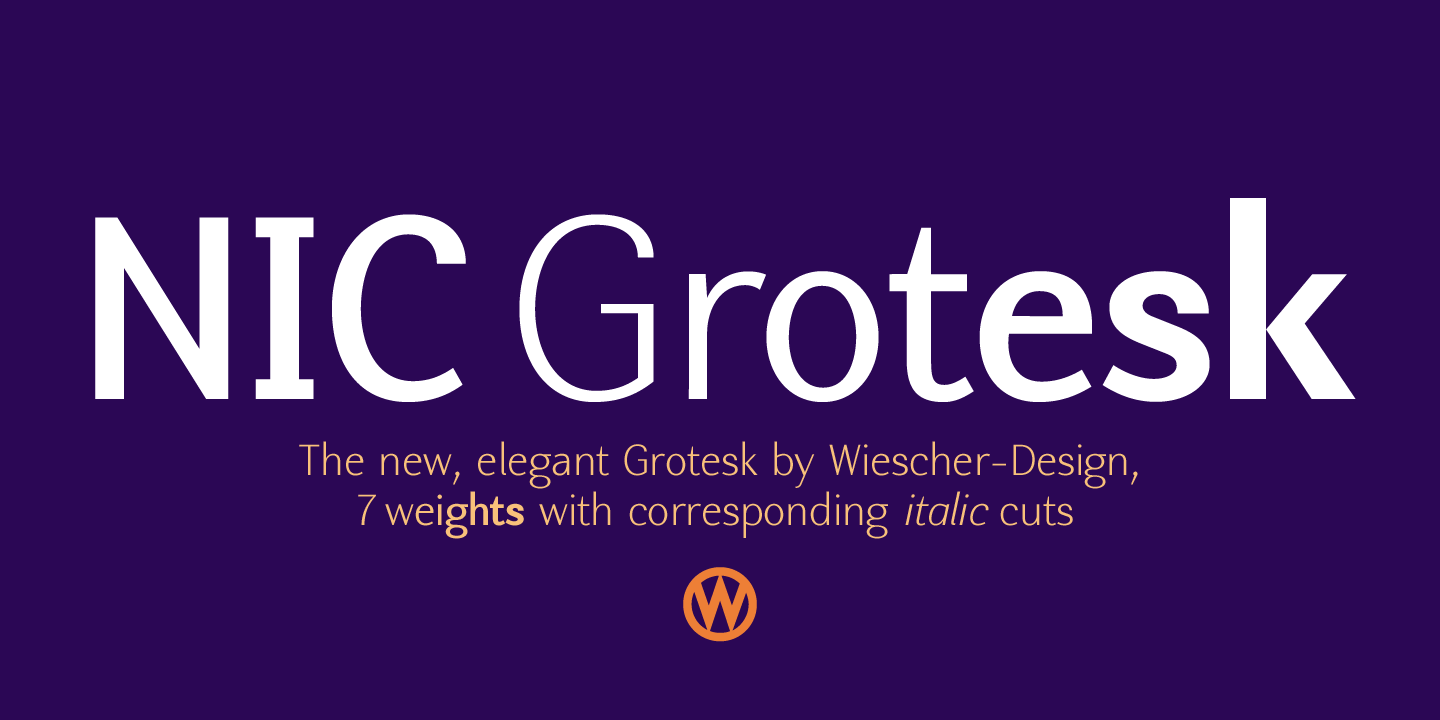
The Nic Font is a clean, contemporary, and highly versatile typeface, ideal for a broad spectrum of design projects that demand clarity and a modern aesthetic. Its straightforward yet sophisticated appeal makes it an excellent choice for corporate branding, editorial design, user interface (UI) design, professional presentations, digital advertising, and app development. Whether you're crafting a sleek website or designing an impactful annual report, this font will imbue your project with a sense of professionalism and understated elegance.
What makes the Nic Font so exciting is its exceptional balance of legibility and modern simplicity. It often features well-proportioned letterforms and a consistent rhythm, ensuring text is easy to read across various sizes and mediums. This font is perfect for designers who prioritize a minimalist yet strong visual identity. It stands out by offering a reliable and adaptable solution that can seamlessly blend into diverse design contexts while maintaining a distinct and appealing character. The clean lines and thoughtful spacing contribute to a polished appearance that communicates efficiency and contemporary style.
The Nic Font typically offers a comprehensive family to support diverse design needs. While specific variations may depend on the font package, you can generally expect to find a range of weights such as Thin, Light, Regular, Medium, SemiBold, Bold, and Black, providing extensive options for hierarchy and emphasis. Many versions of the Nic Font Free Download also include corresponding Italic styles for each weight, adding dynamic flexibility for emphasis and stylistic variation. Additionally, some premium packages might offer Condensed or Extended widths, various figure styles (e.g., tabular, old-style), and even alternate characters for specific glyphs, allowing for more nuanced and custom typographic solutions. This extensive family ensures that the Nic Font can be adapted to almost any design requirement, maintaining a consistent, modern, and highly functional aesthetic throughout your project.